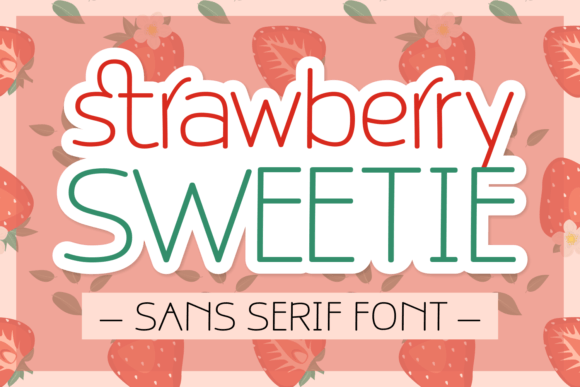
Unleash your creativity with Strawberry Sweetie Font, a sans serif masterpiece that will make your designs shine. Its clean, sweet style effortlessly complements a wide range of projects, adding a touch of charm and sophistication. Picture your photo book blooming with life, as Strawberry Sweetie's graceful curves and playful shapes guide your readers on an unforgettable journey.
Visualize your invitations, greeting cards, and social media posts transformed into delightful works of art, capturing the attention of all who behold them. Strawberry Sweetie's versatility extends beyond digital realms; it's perfect for crafting personalized mugs, tote bags, and other cherished items that bring a smile to your face every time you use them.
With Strawberry Sweetie, you'll never be short of inspiration. Let its sweet allure enhance your logos, branding materials, and website designs. Picture your business blooming, attracting new customers with its charming appeal. And when it's time for celebration, Strawberry Sweetie will add an extra layer of joy to your party invitations and decorations.
But Strawberry Sweetie isn't just a pretty face; it's also incredibly user-friendly. PUA-encoded, it allows you to effortlessly access all of its glyphs and swashes, opening up a world of creative possibilities. Unleash your imagination and craft designs that leave a lasting impression, captivating your audience and making them yearn for more.
So why settle for ordinary when you can have extraordinary? Embrace the Strawberry Sweetie Font today and embark on a creative journey that knows no bounds. Let your designs blossom with charm, sweetness, and a touch of whimsy. Experience the joy of creating something truly unique and unforgettable.